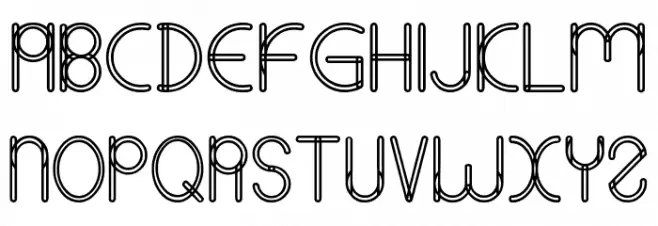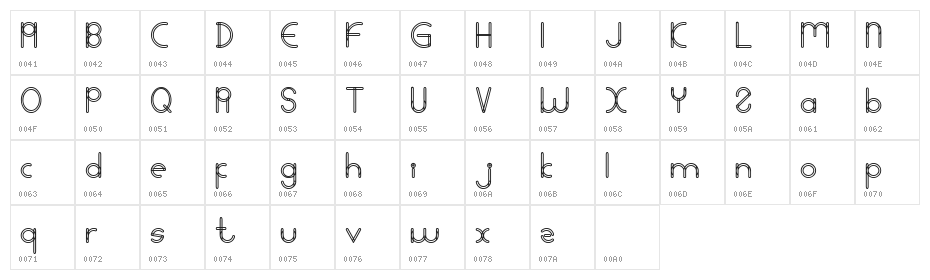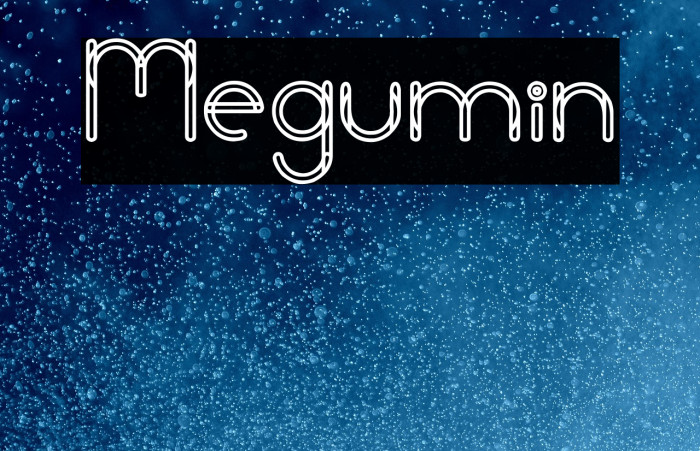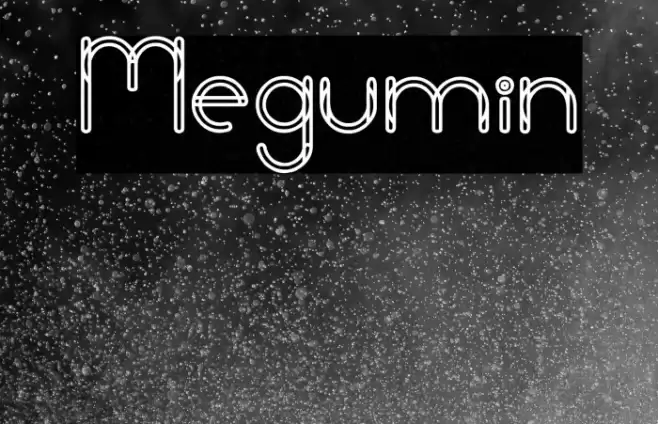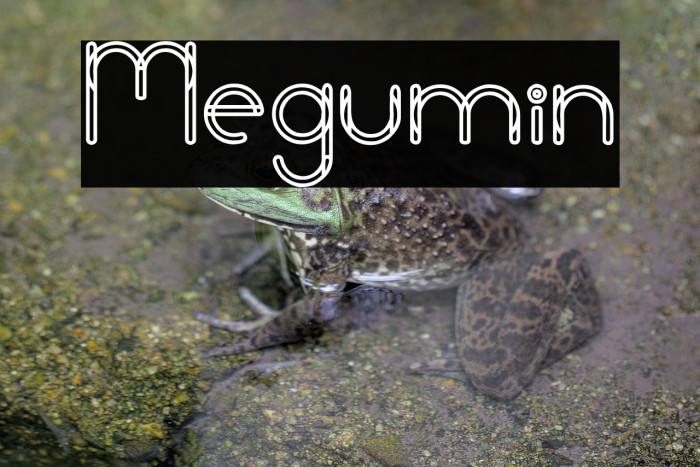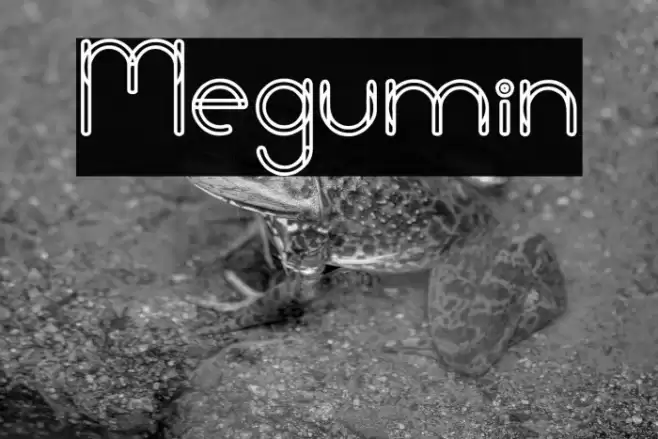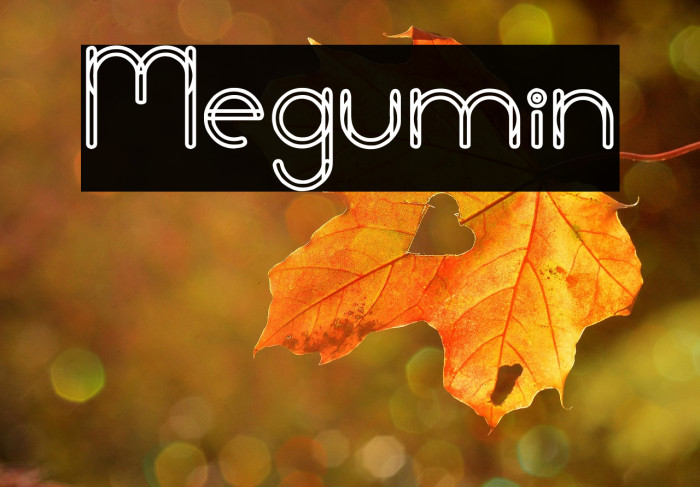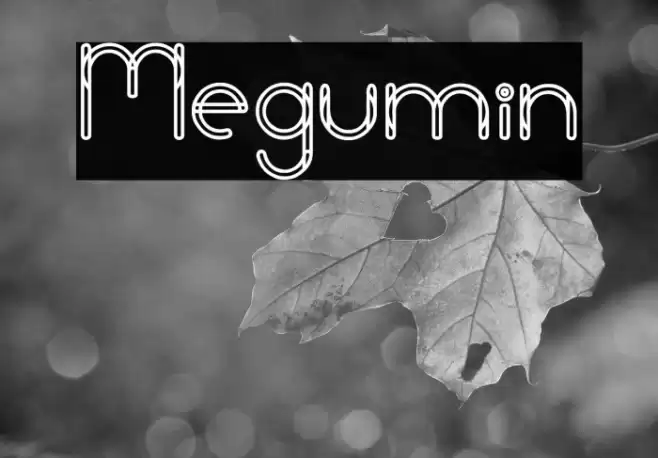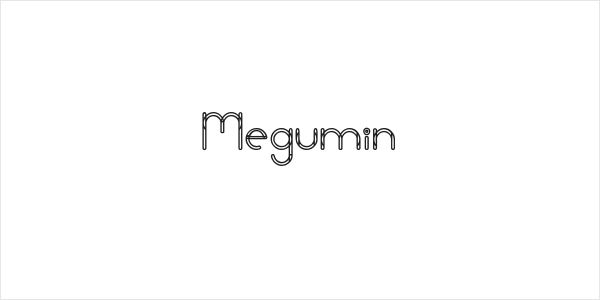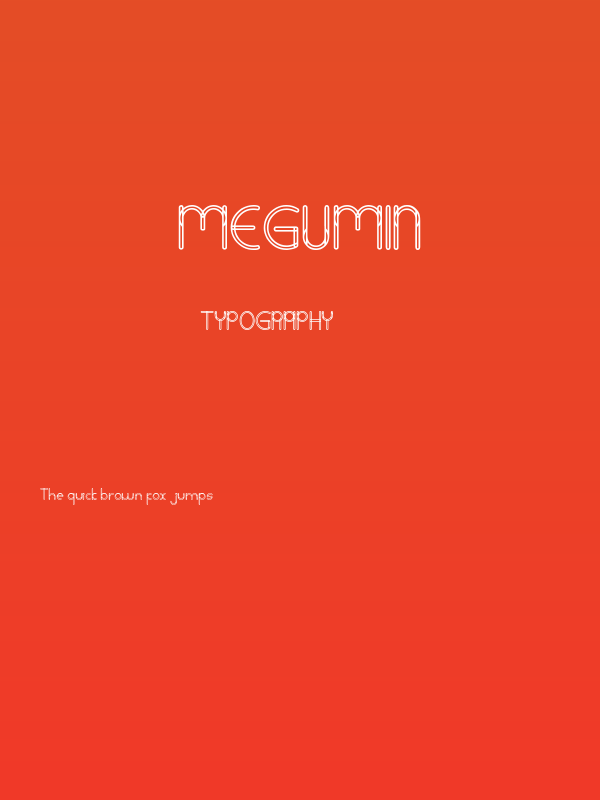
Megumin Font
Megumin Description
This font features a unique and playful design with a double-line structure, creating a sense of depth and dimension. The characters are rounded and consistent in height, with a modern and geometric feel. The uppercase and lowercase letters maintain a uniform style, while the numbers and special characters complement the overall aesthetic. The font's open and airy design makes it suitable for creative and artistic projects, offering a fresh and contemporary look.
| Use Case | Logos, Posters, Creative Branding |
| Proposed Projects | Ideal for creative projects such as posters, logos, and branding materials that require a modern and artistic touch. |